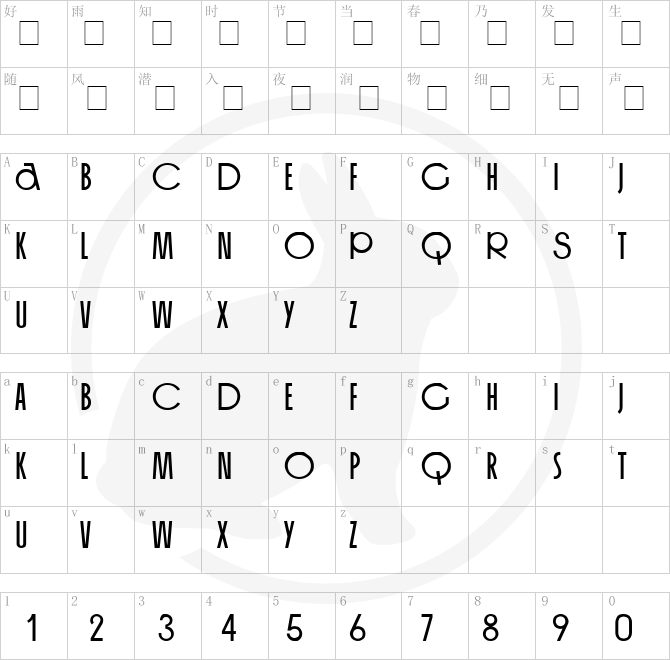
- Font Name:Mackintosh SF
Mackintosh-SF.ttf is a very beautiful artistic font, Mackintosh-SF.ttf is widely used in the design and printing of various books and pictures,Mackintosh-SF.ttf has a strong visual impact,Mackintosh-SF.ttf is a commonly used font in newspapers, magazines and books, and is used in posters, e-commerce Poster design, store design, logo design, font design and other fields.Mackintosh-SF.